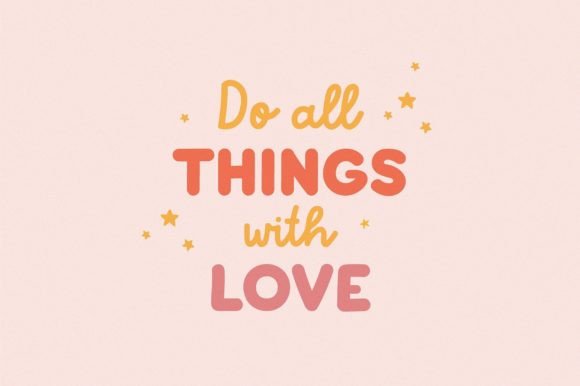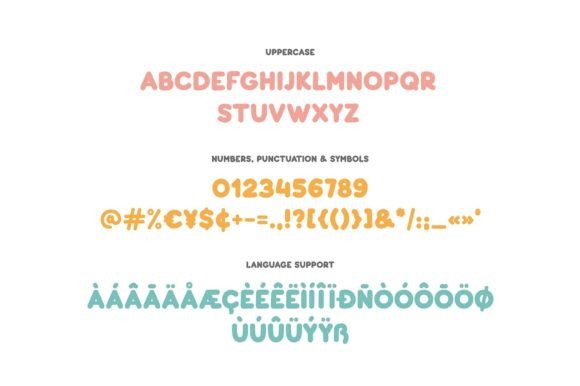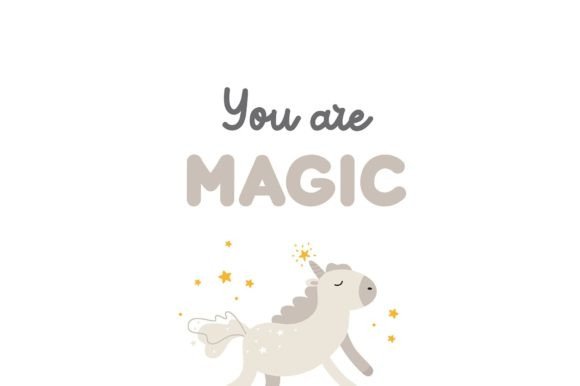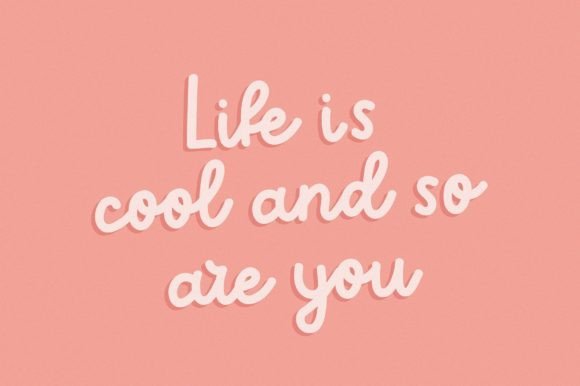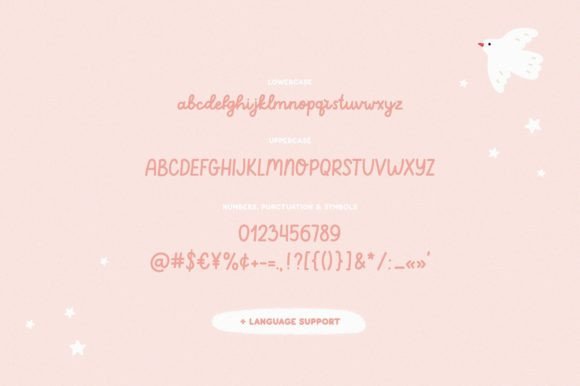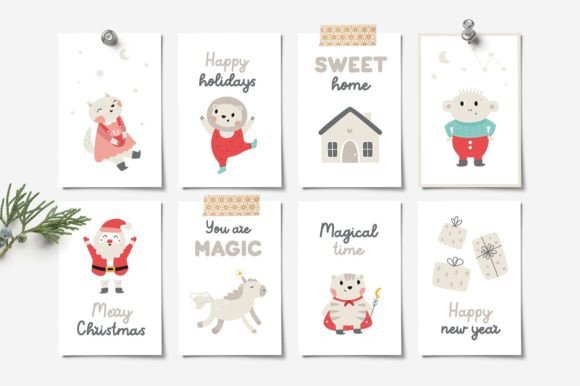
The Magic of the Holly Jolly Font
Do you remember the feeling of unwrapping a new art supply box as a child? The excitement of discovering new colors, textures, and fonts that could bring your imagination to life? As a designer, I still get that same thrill when I stumble upon a font that perfectly captures the whimsy and wonder of childhood. And that’s exactly what the Holly Jolly Font does – it’s a font that’s as sweet as a candy cane and as charming as a winter wonderland.
This delightful font is designed with children’s books and projects in mind, with a natural handwritten style that’s sure to capture young hearts. But its value goes beyond just kids’ projects – it’s also a great choice for designers looking to add a touch of playfulness and personality to their designs. With its PUA encoding, accessing all the amazing glyphs and ligatures is a breeze, making it a must-have for any designer looking to add some holiday cheer to their work.
Holly Jolly Font Key Features
- Font Size: This font family includes multiple weights ranging from 100 to 900, allowing for precise control over font sizes.
- Unique Characteristics: Holly Jolly Font features a distinctive, hand-drawn style with a mix of bold and playful lines, perfect for creating festive and whimsical designs.
- Language Support: Supports a wide range of languages, including Latin, Cyrillic, and Greek scripts, making it suitable for multilingual designs.
Holly Jolly Font Review
I’ve had the chance to work with the Holly Jolly Font, and I must say, it’s a delightfully festive addition to any design project ✨. The font’s playful and whimsical feel instantly evokes the holiday spirit, making it perfect for Christmas or winter-themed designs. The letterforms are well-balanced, with elegant flourishes and smooth lines that add to the font’s charm.
One of the things I appreciate about Holly Jolly is its versatility. It works well in both digital and print formats, and its OpenType features allow for some lovely effects and combinations. The font also includes a range of weights and styles, giving designers plenty of options to experiment with.
- ⚠️ Limited language support: As with many decorative fonts, Holly Jolly may not support a wide range of languages, which could be a limitation for designers working with non-English texts.
- ⚠️ Limited customization options: While the font includes some OpenType features, it’s not as extensive as some other fonts on the market. Designers may find themselves limited in their ability to fully customize the font’s look and feel.
Overall, I think the Holly Jolly Font is a great choice for designers looking to add a touch of holiday cheer to their projects. While it may have some limitations, its charm and versatility make it a worthwhile addition to any font collection ✨.
Use the Holly Jolly Font for festive designs, holiday cards, and seasonal promotions.
Combine the font with bold colors and graphics for a playful and eye-catching look.
Experiment with different font sizes and styles to create a unique and festive feel.
Alternatives to Holly Jolly Font
Great Vibes is a beautiful, elegant script font that’s perfect for creating a festive and cheerful atmosphere. It’s ideal for designs that need a touch of sophistication and playfulness, such as holiday cards, wedding invitations, and party decorations. Great Vibes is a more refined and polished alternative to Holly Jolly Font, with a more cohesive and flowing design.
Carolyna Pro is a modern, high-end script font that’s perfect for creating a luxurious and elegant look. It’s ideal for designs that need a touch of sophistication and glamour, such as high-end product packaging, luxury branding, and special occasion invitations. Carolyna Pro is a more upscale alternative to Holly Jolly Font, with a more refined and sophisticated design.